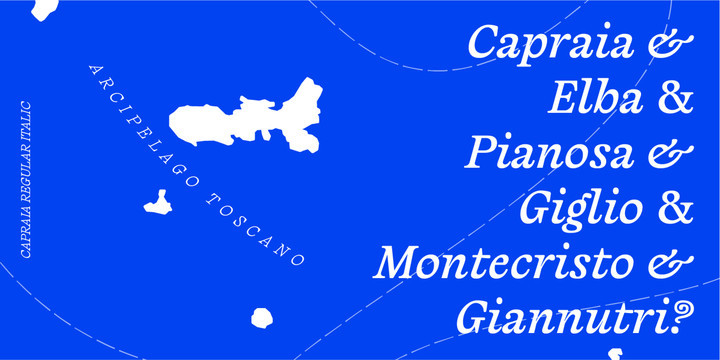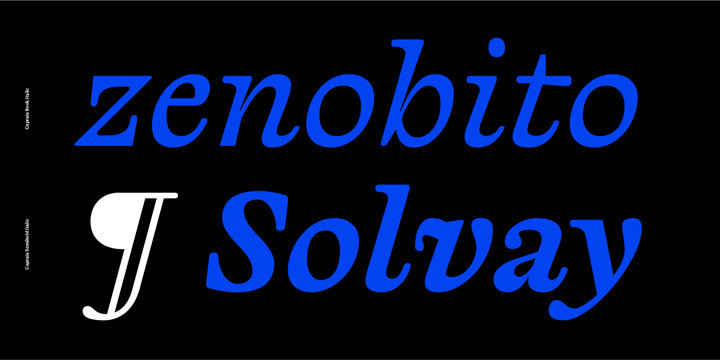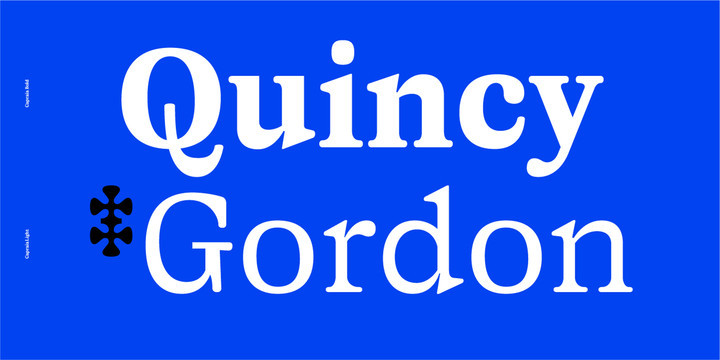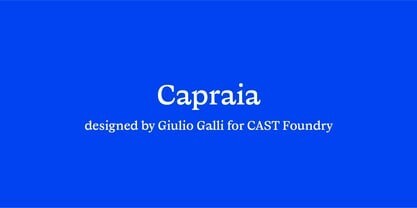
Capraia Font
Capraia is a book typeface, with a heavily quirky look when shown at big sizes, and with an irregular but attractive rhythm at text sizes. Capraia Book and Regular are designed specifically for continuous texts: Book meets a current preference of Italian publishers for lighter faces, while the slightly heavier Regular is intended for the wider international market.True to its vocation for publishing, Capraia has a big x-height, medium contrast and wide bracketed serifs. Furthermore, its slightly flattened curves, some unconventional roman letterforms (a, G, Q) and the ‘slanted roman’ italics, along with design details such as ball terminals, give to the whole family a very contemporary appeal.